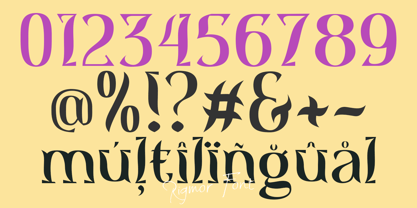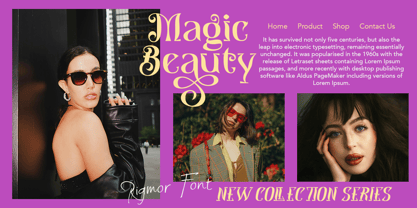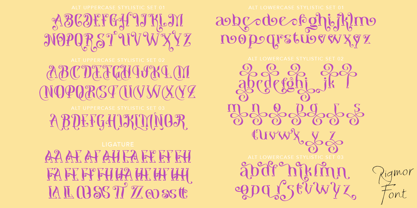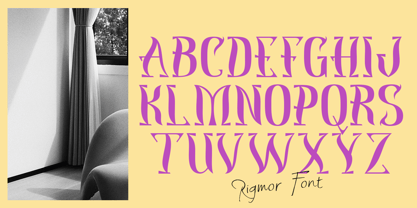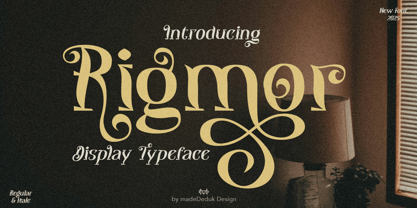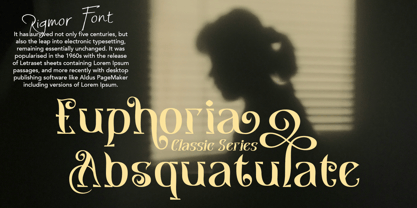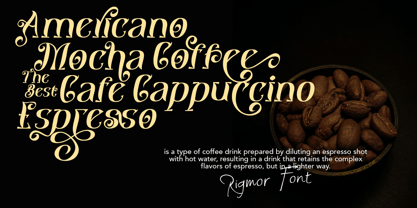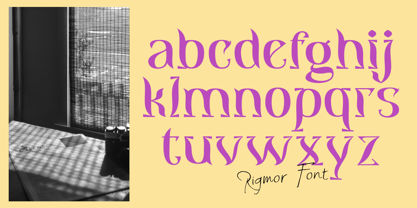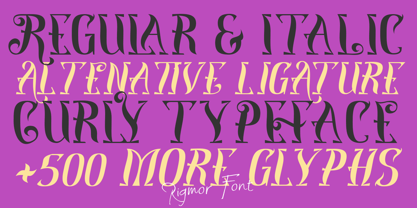
Rigmor
Die Schriftfamilie Rigmor wurde von madededuk entworfen und von madeDeduk veröffentlicht. Rigmor enthält 2 Stile und Familienpaketoptionen. Mehr über diese Familie
Rigmor is a display font curly will bring your project a strong and powerful touch. Browse through all the previews and get as inspired as I was when creating this font. This font is very perfect for many display purposes in your product design if you want to a modern vintage style look. Such as book covers, product labels, logos badges, drink bottles, tattoo shop, coffee shops, and many more.